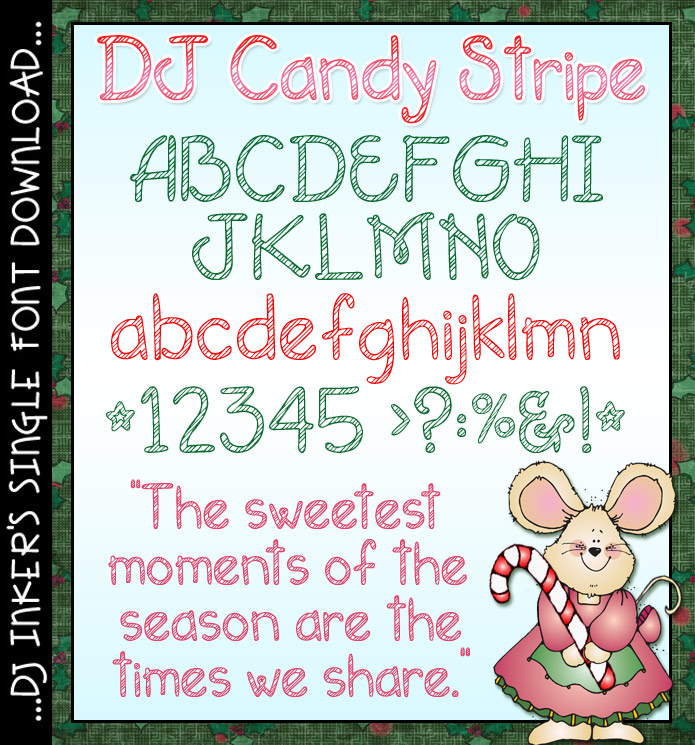
Make your projects for the holidays just a little bit sweeter with our DJ Candy Stripe font. This delectable lettering will be brilliant for typing up gift tags for goodies, Christmas newsletters, greeting cards, recipe titles & sweet smiles throughout the year!
Type these stripes in any bright color... but it will look best in larger sizes. Easy installation instructions included within zipped download file.